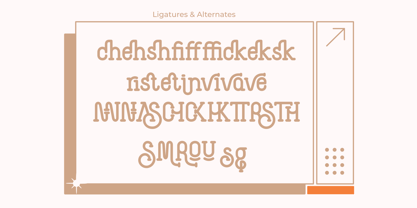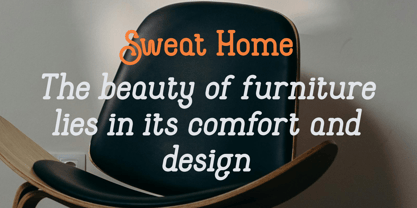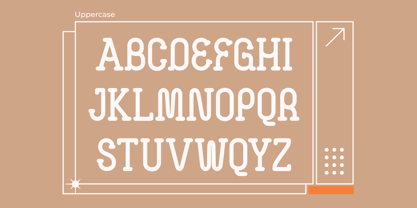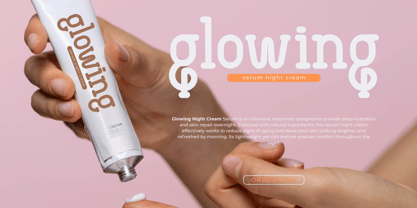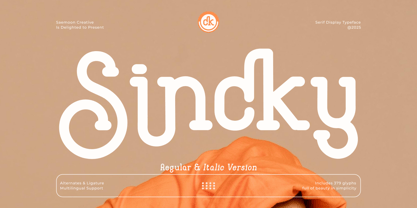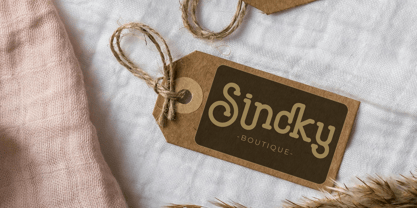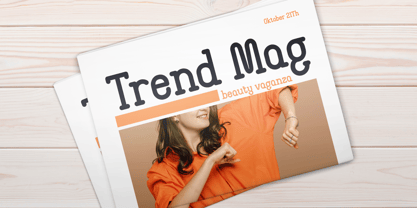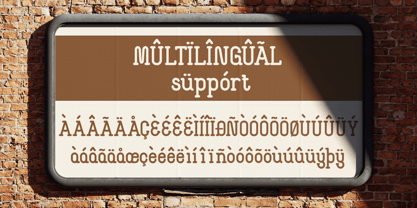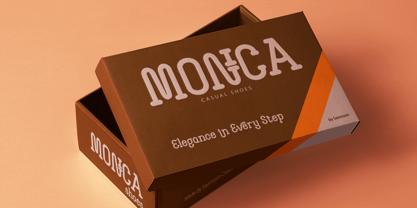
Sincky
by Saemoon Creative
The Sincky Font Family was designed by Sapto Susilo and published by Saemoon Creative. Sincky contains 2 styles and family package options. More about this family
Sincky is a monoline serif display font designed with precision and elegance, ideal for creating standout typography in bold, impactful designs. Its clean and minimalist monoline structure gives it a modern yet timeless feel. The font is equipped with a wide range of ligatures, offering versatility and creativity, ensuring your designs maintain a unique and polished look. Sincky also includes an italic style, adding a dynamic and sophisticated touch to your text, perfect for emphasizing key elements in your design. Whether for branding, editorial design, or creative projects, Sincky’s distinctive character and refined details will elevate your typography to new heights.
Designers: Sapto Susilo
Foundry: Saemoon Creative